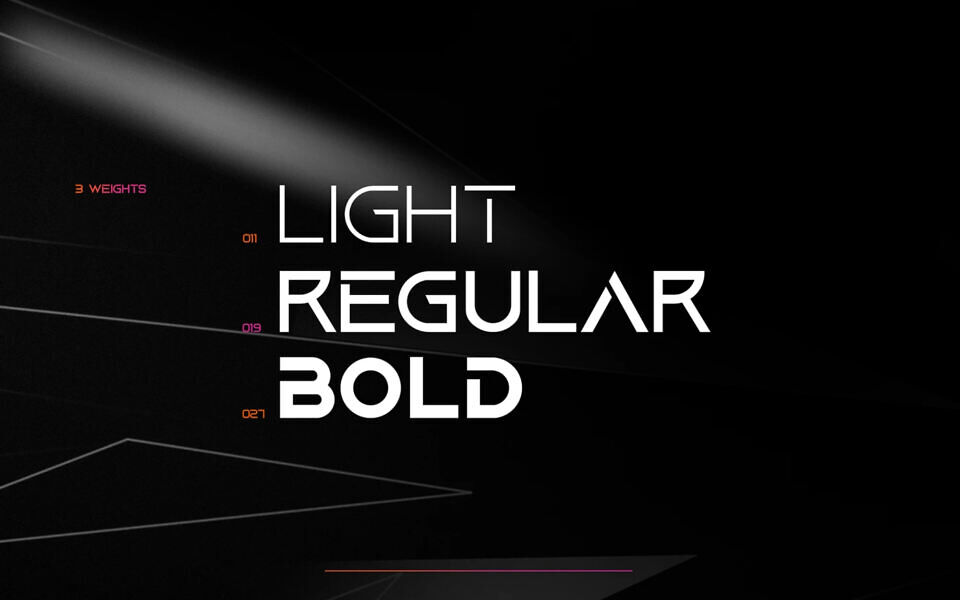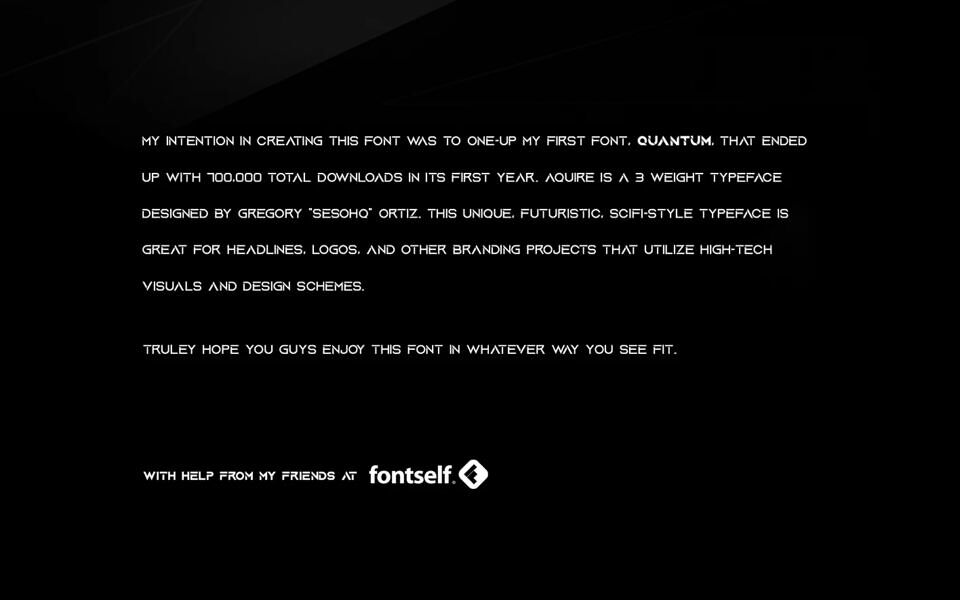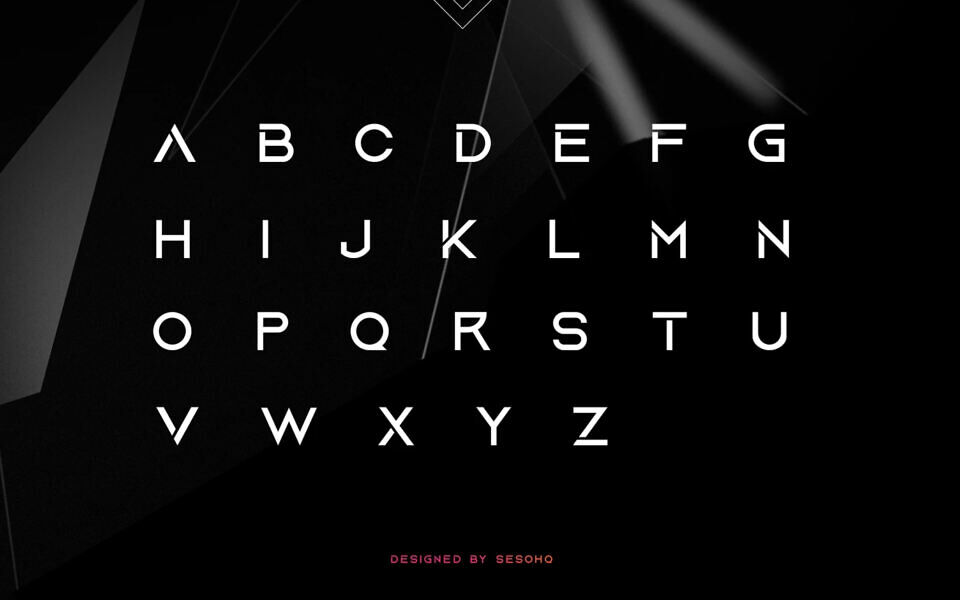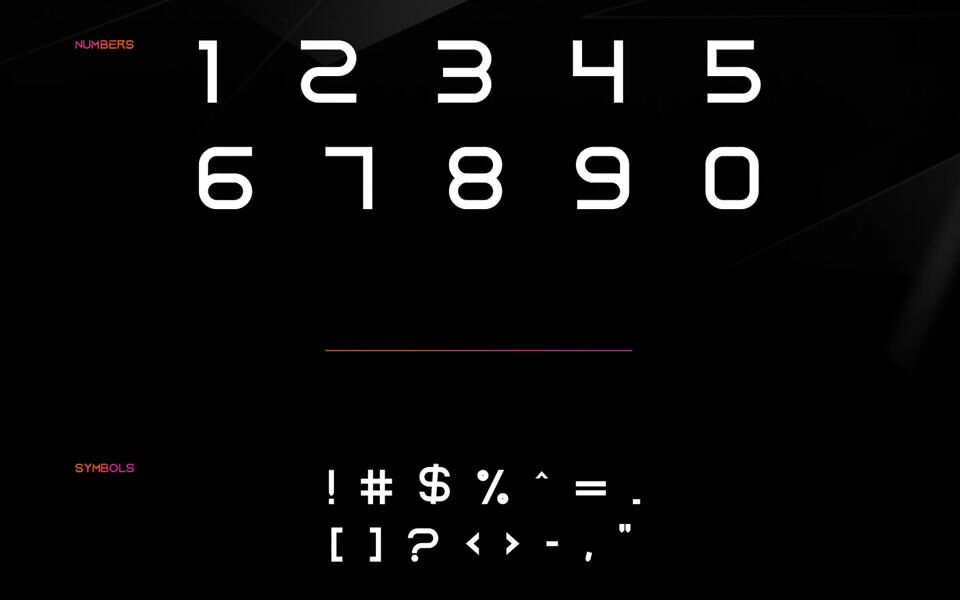
Aquire Font
AQUIRE is a 3 weight typeface designed by Gregory “SesoHQ” Ortiz. This unique, futuristic, scifi-style typeface is great for headlines, logos, and other branding projects that utilize high-tech visuals and design schemes. Perfect font for headings, logos, that want to have a modern/futuristic vibe. OR for whatever your heart sees it as.
Aquire is an updated version to the Quantum font, designed for any futuristic branding that will last years.